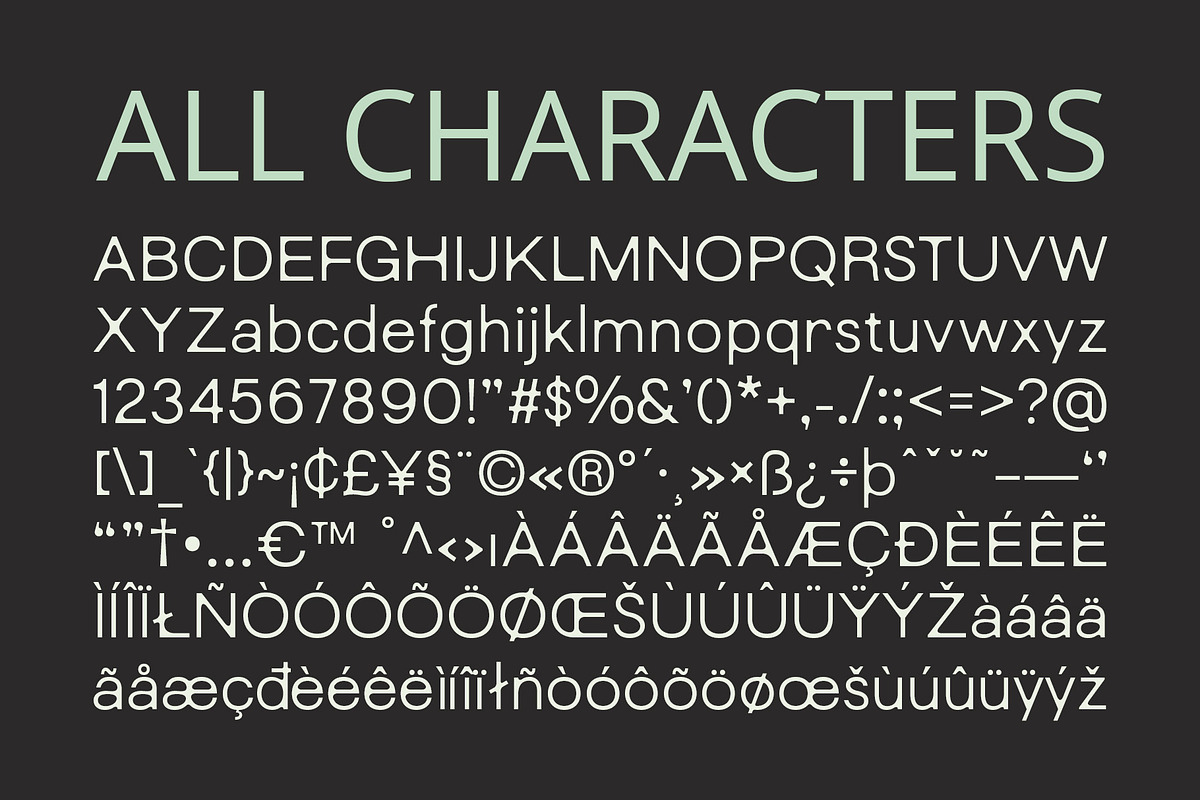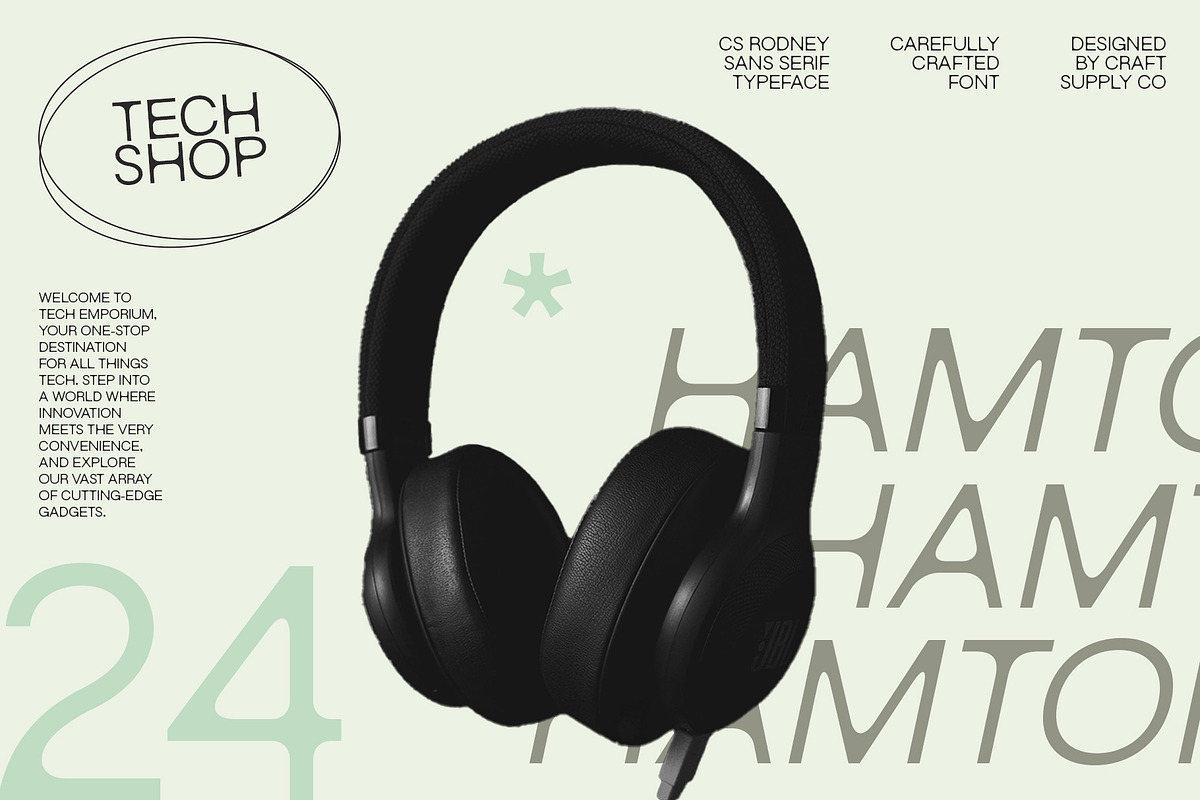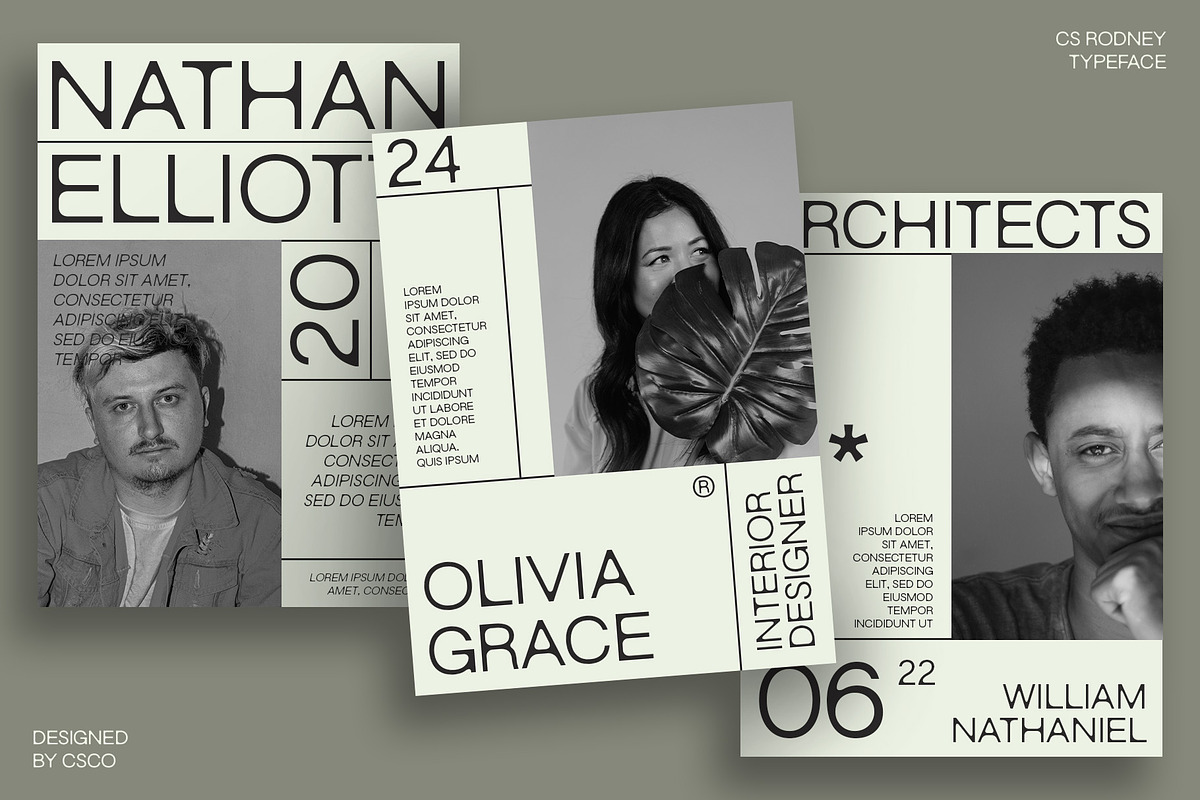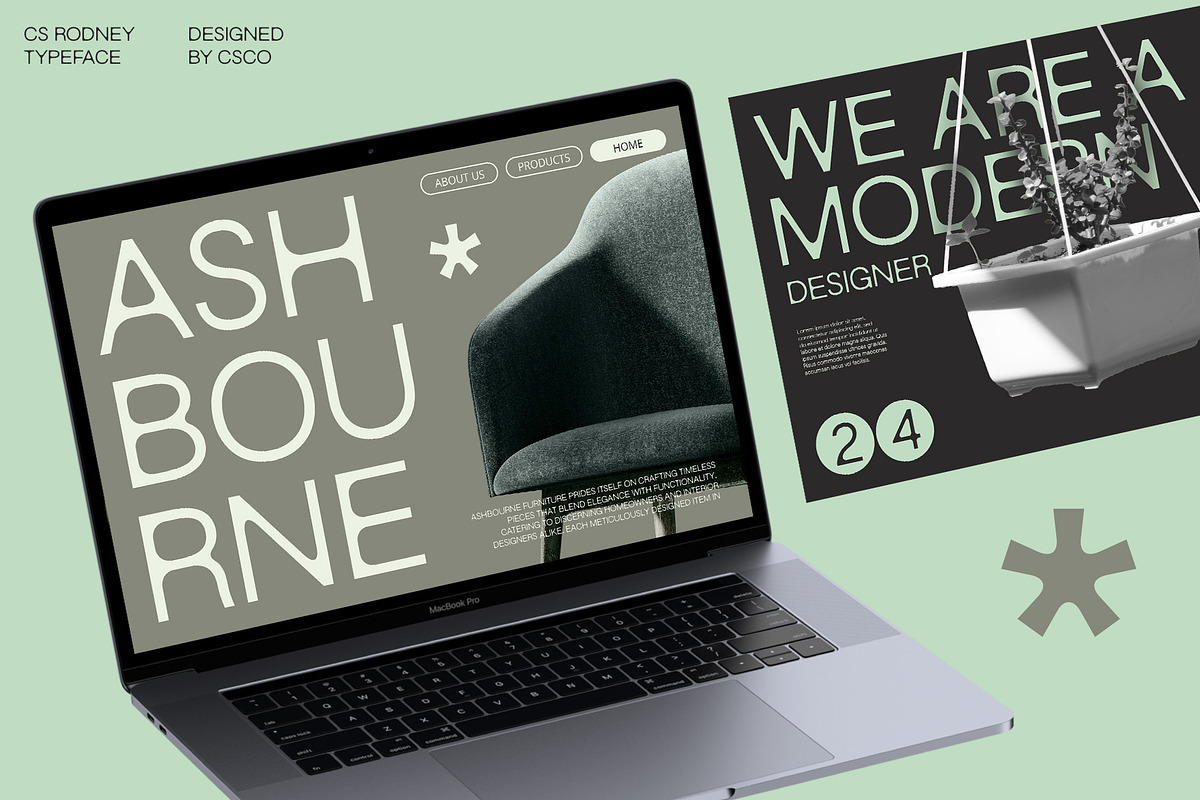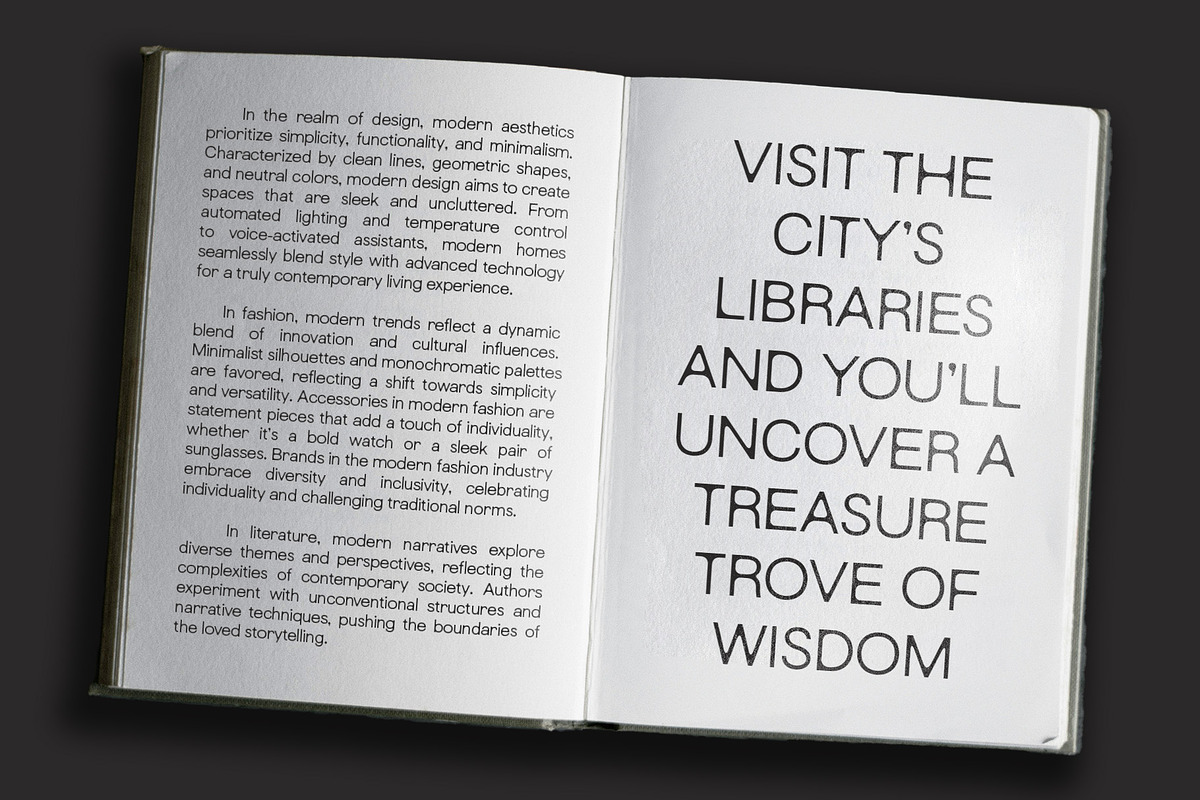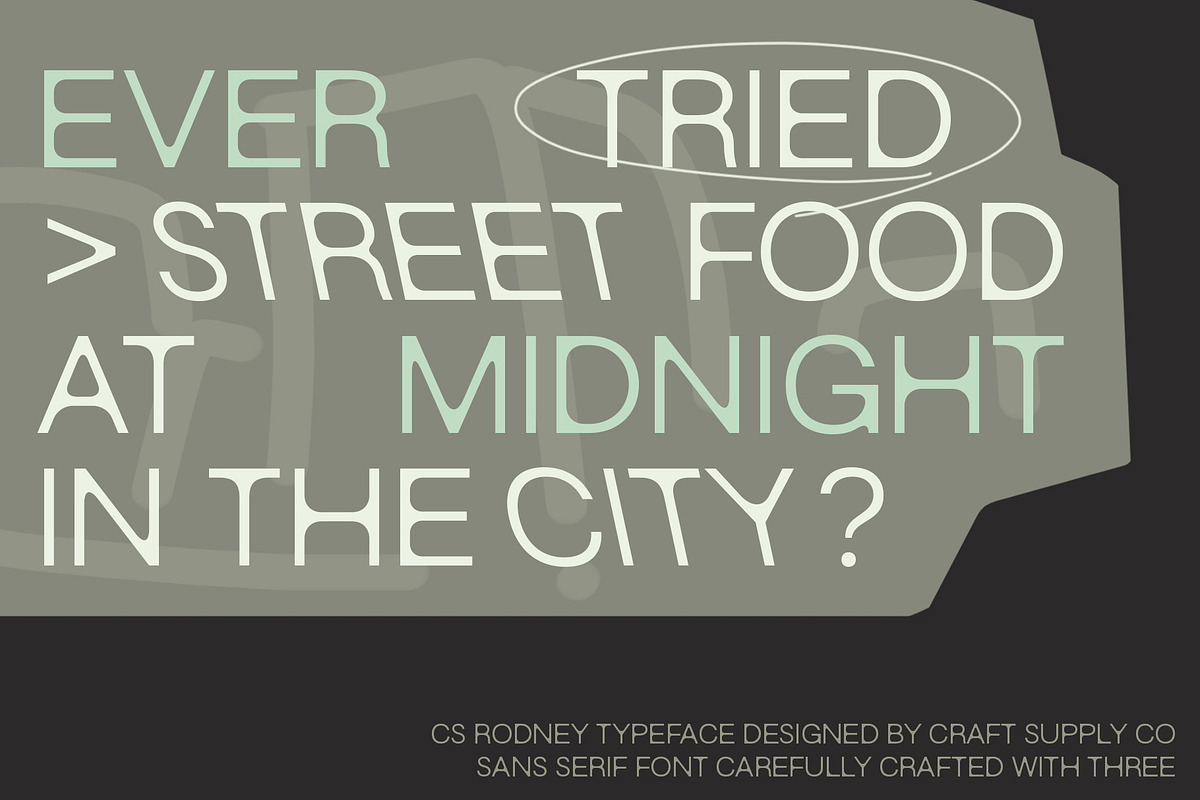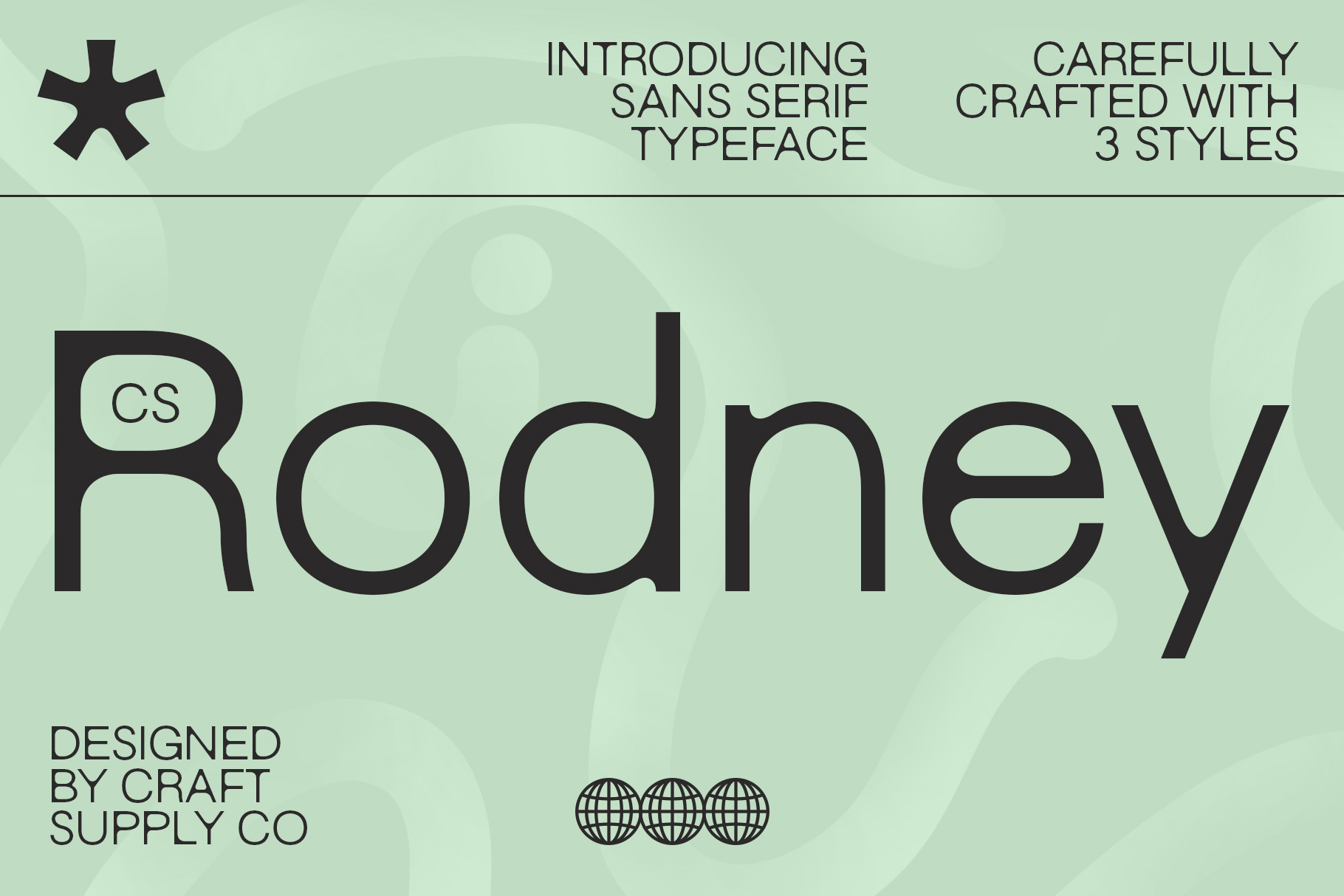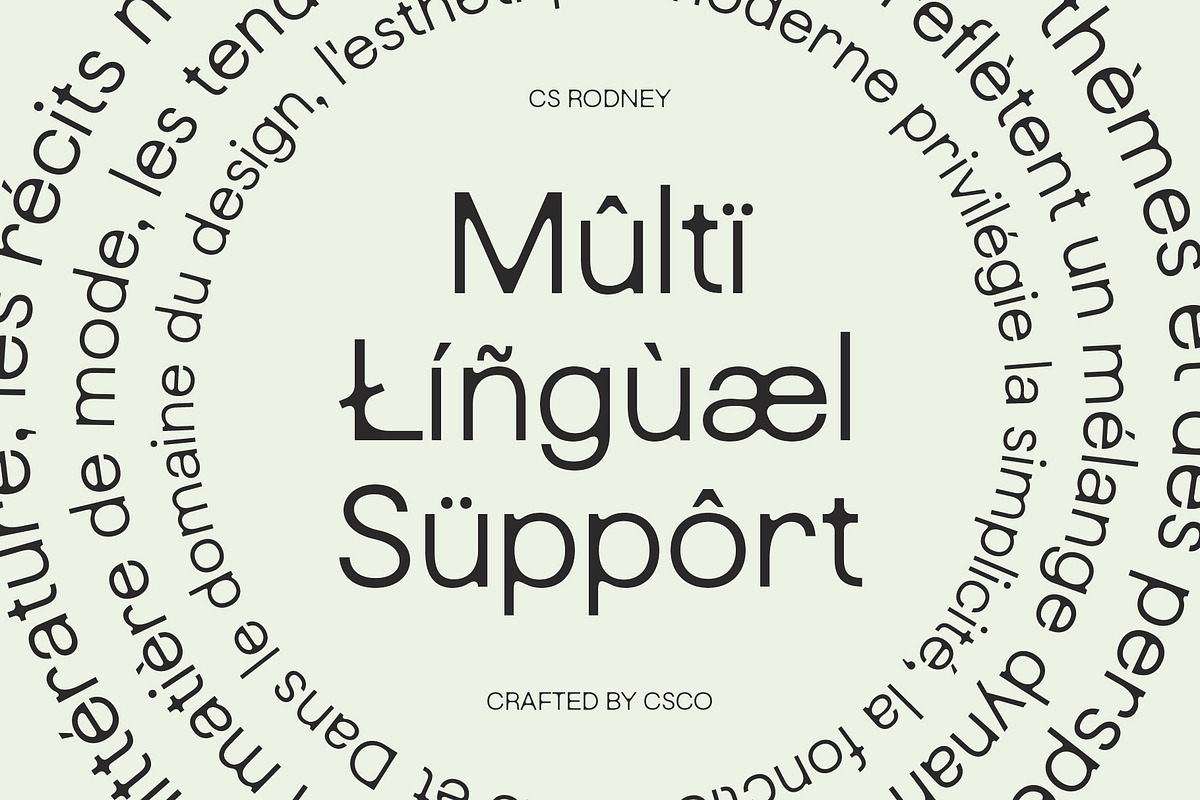
CS Rodney – Sans Serif Typeface
CS Rodney – Modern Sans Serif Typeface
Versatile Modern Font for Contemporary Designs
CS Rodney is a modern sans-serif font that is highly suitable for a wide range of contemporary designs. With its clean, simple, and elegant design, this font can adapt to various modern design styles, making it perfect for web and graphic design, promotional materials, and product packaging.
Adaptable to Various Design Styles
CS Rodney’s versatility lies in its ability to adapt to different design styles. Whether you’re creating a sleek and minimalist website or a vibrant and dynamic poster, this font can enhance the overall look and feel of your design.
Fresh and Up-to-Date Impression
One of the key advantages of CS Rodney is its ability to provide a fresh and up-to-date impression on every design. Its clean lines and modern aesthetic make it a solid choice for contemporary creative projects that require a modern and stylish look.
Ideal for Contemporary Creative Projects
CS Rodney is ideal for contemporary creative projects that require a modern and stylish font. Whether you’re designing a website, creating graphics for social media, or designing promotional materials, this font can help you achieve a professional and polished look.